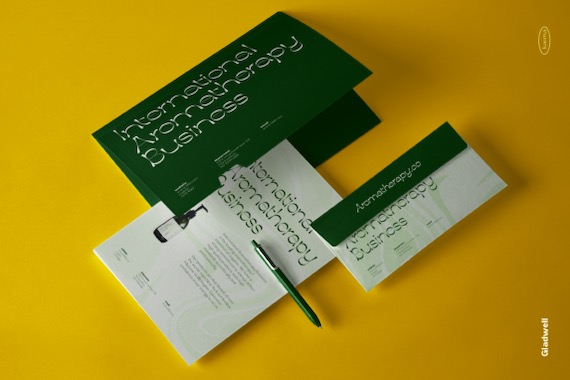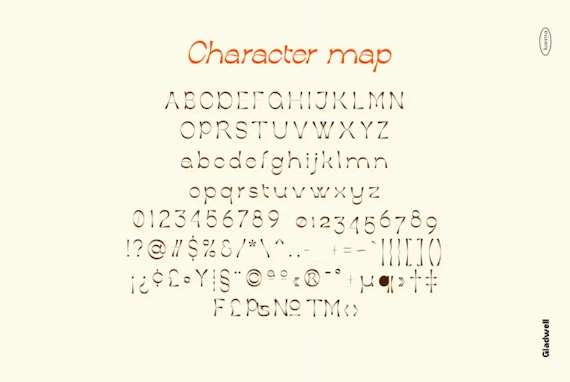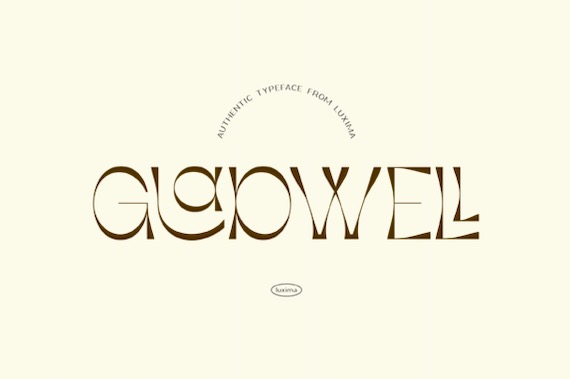
Gladwell is a classy and luxury display font that was created and shared by Luxima Creative. It’s inspired by a unique palm tree trunk. Gladwell gives a distinctive and authentic impression of your creations, suitable for independent and challenging projects. Gladwell is PUA encoded which means you can access all of the glyphs and swashes with ease.
Gladwell Display Font